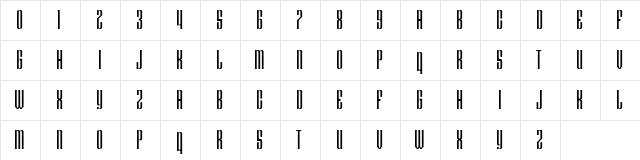
Eighty Nine 75020 Regular
| Designer | Damien Gossethttps://www.sweeep.fr |
Design Context for Eighty Nine 75020 Typeface
Eighty Nine 75020 is a composed and adaptable typeface that performs quietly and consistently across a wide range of design contexts.